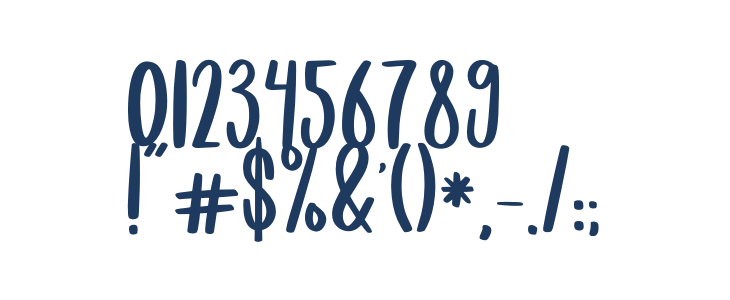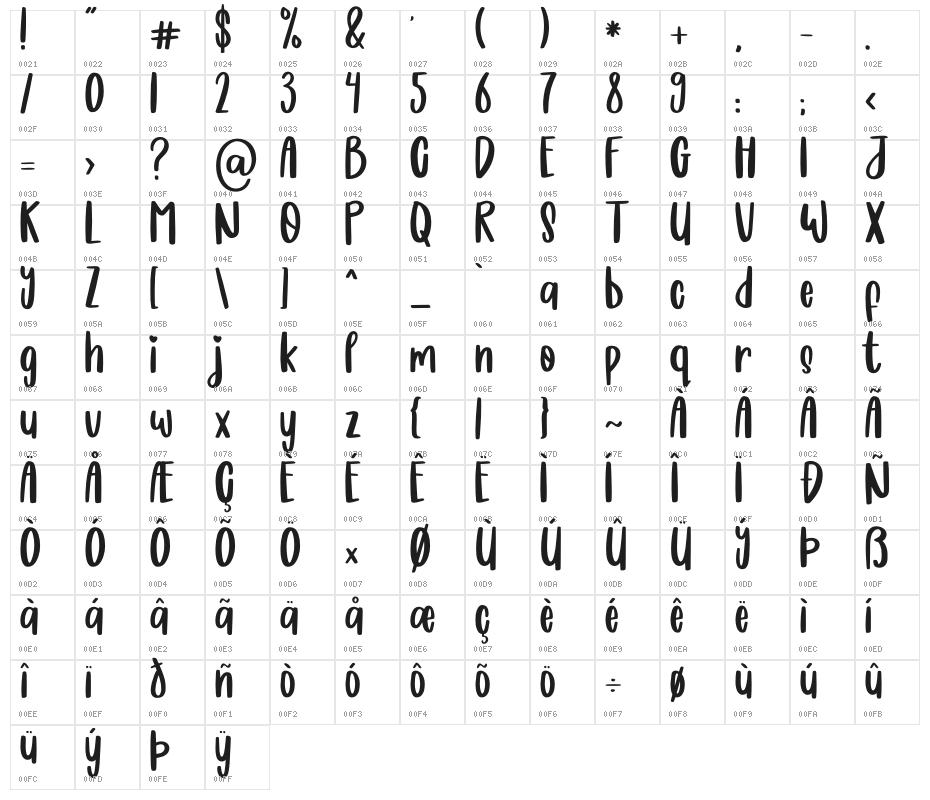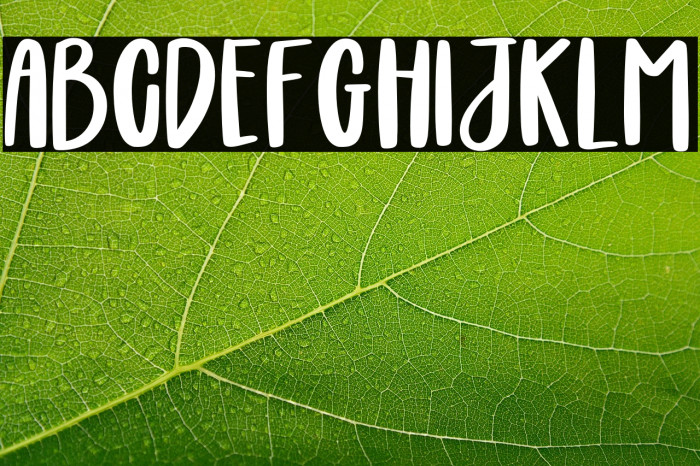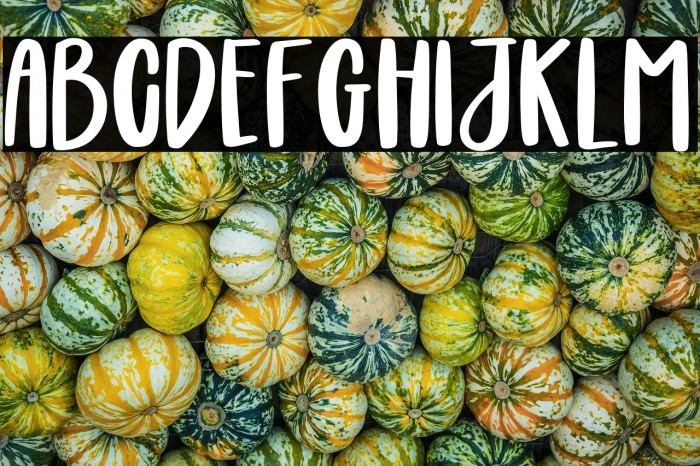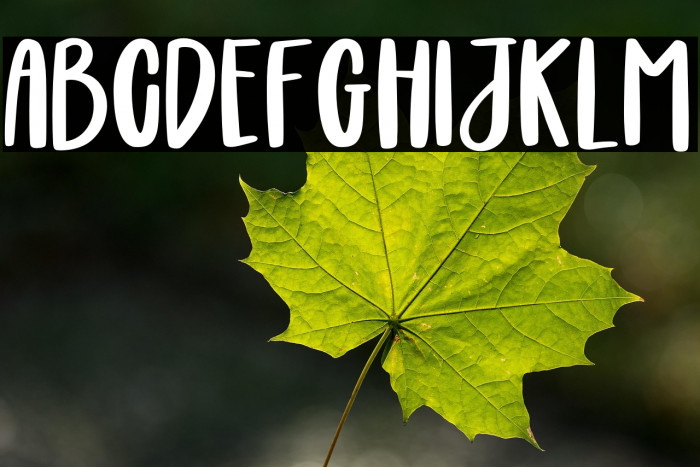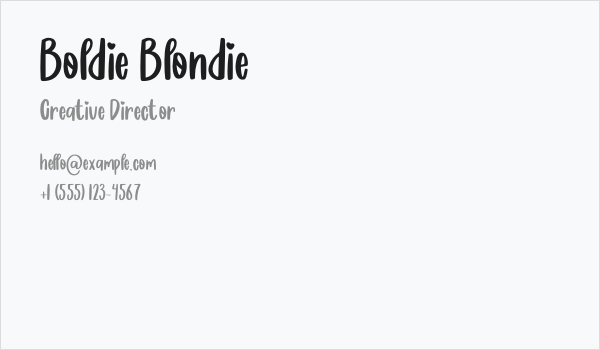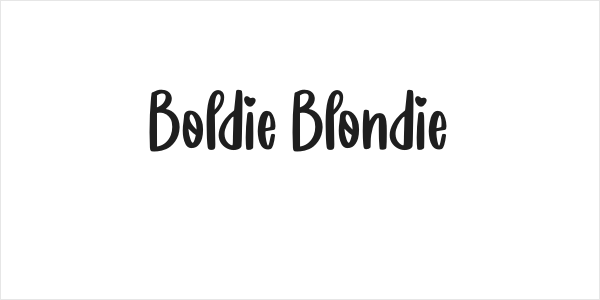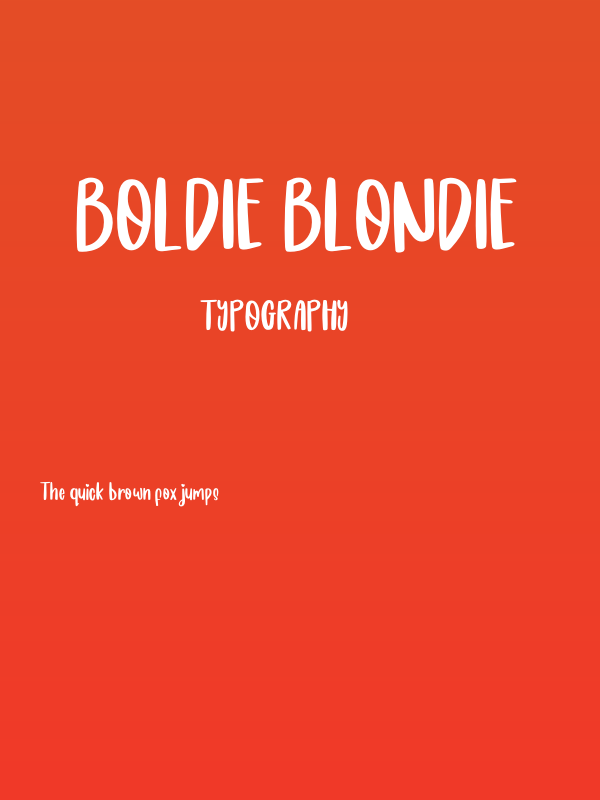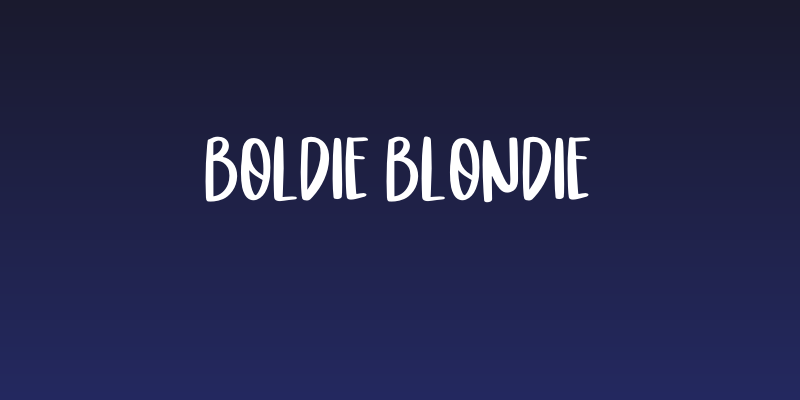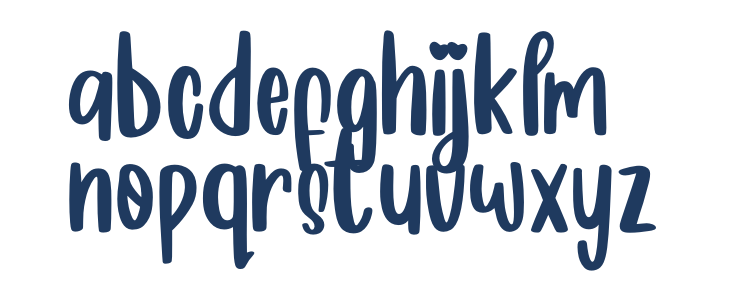
Boldie Blondie Font
Boldie Blondie Description
This playful and bold handwritten font features a lively and energetic style with thick strokes and rounded edges. The uppercase letters are tall and slightly narrow, giving a sense of height and elegance, while the lowercase letters maintain a consistent flow with a touch of whimsy. The numbers are equally bold, ensuring visibility and impact. Special characters are creatively integrated, adding to the font's overall charm. The font's design is perfect for projects that require a personal and friendly touch, making it ideal for creative and informal applications.
Overall StylePlayful
Proposed ProjectsIdeal for greeting cards, playful branding, children's books, and social media graphics.